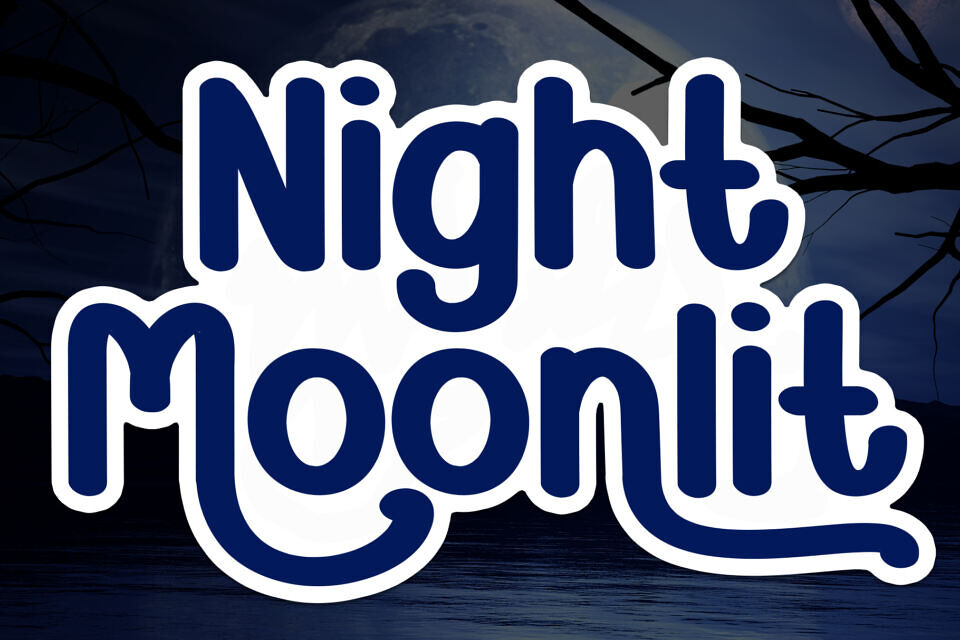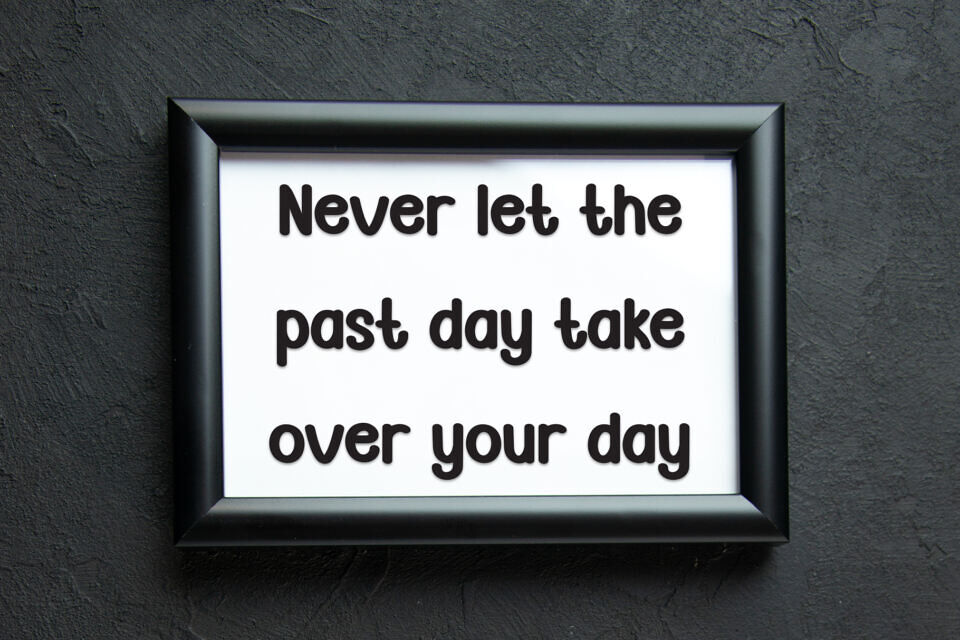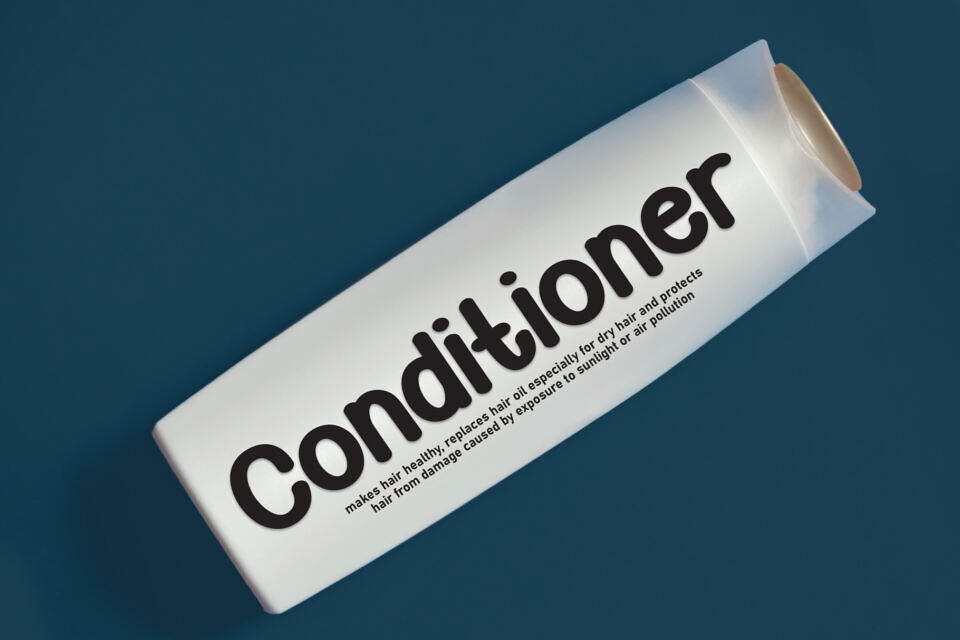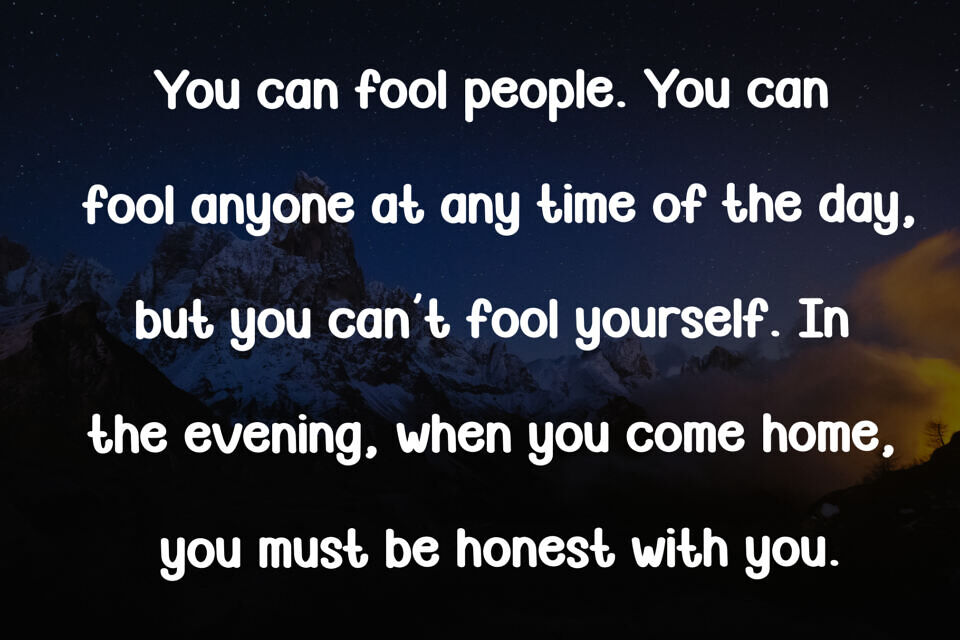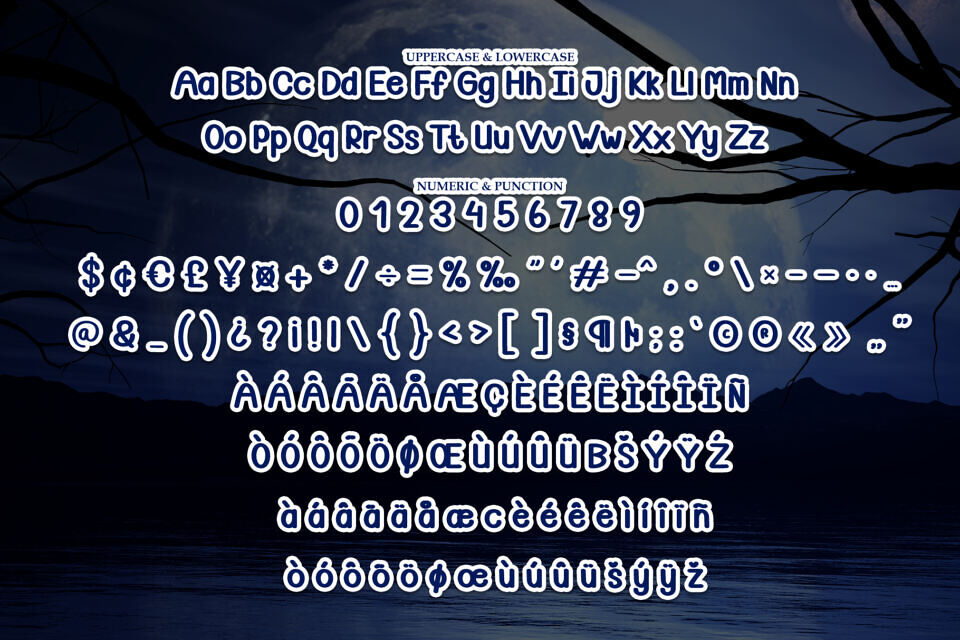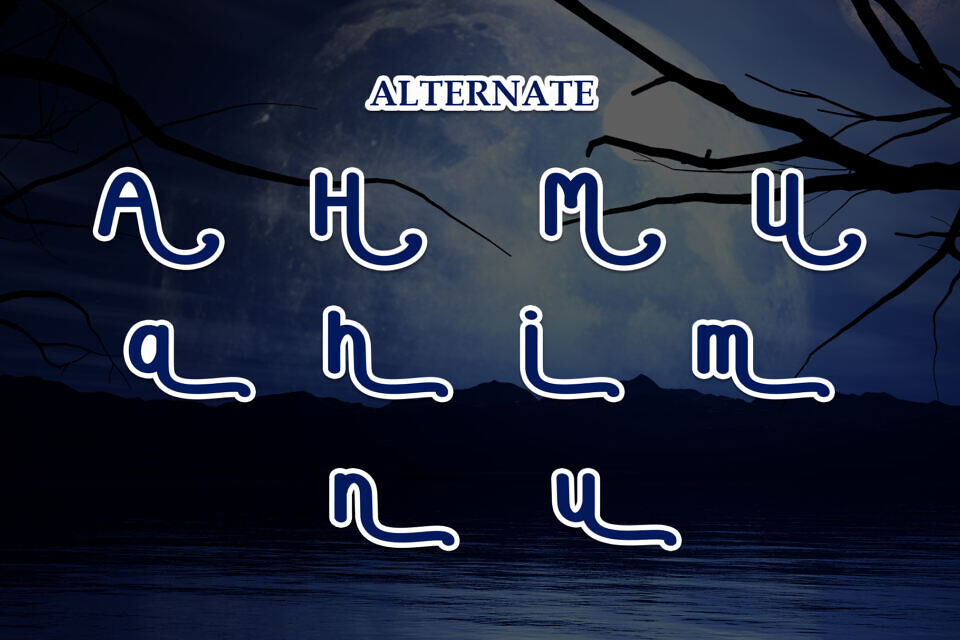
Night Moonlit Font is a whimsical, handwritten-style typeface that exudes a dreamy, nocturnal charm. With its rounded, flowing letters and subtle flourishes, it captures the magic of a moonlit night, making it ideal for quotes, invitations, or mystical designs.
The font’s playful yet elegant design, paired with a white outline for contrast, enhances its visibility against dark, starry backgrounds. Perfect for creative projects, Night Moonlit Font brings a touch of enchantment to any composition.